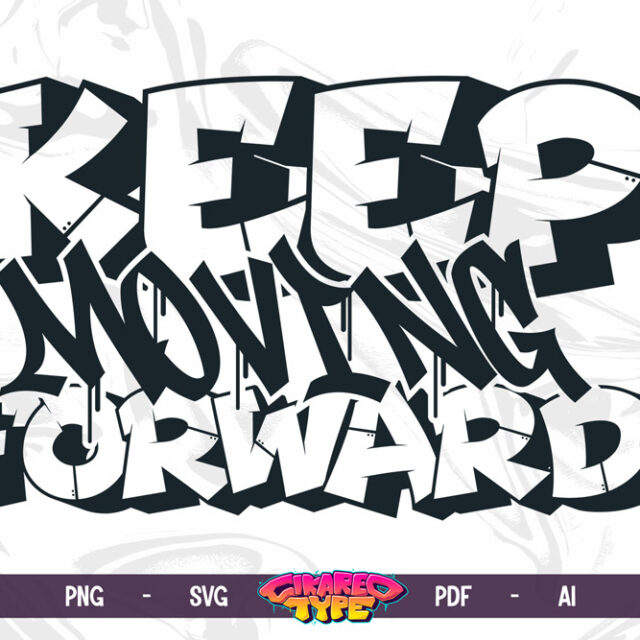
About Keep Moving Forward
Graffiti has always been more than just an art form—it’s a message, a statement, and a voice from the streets. With our Keep Moving Forward | Bold Graffiti Typography Vector & PNG, you can bring that motivational energy into your own design projects. This graffiti typography design combines bold lettering, urban style, and inspirational meaning, making it perfect for creators who want their work to not only look powerful but also deliver a strong message.
Why Choose Keep Moving Forward Graffiti Typography?
The phrase Keep Moving Forward has universal power—it represents growth, motivation, and resilience. Combined with a bold graffiti typography style, it transforms into a piece of art that inspires while staying true to urban authenticity.
The Keep Moving Forward Graffiti Text Design Vector is ideal for projects such as:
Streetwear apparel: motivational graffiti graphics for t-shirts, hoodies, and caps
Music industry: bold artwork for covers, flyers, or event branding
Social media: motivational Instagram posts, TikTok visuals, YouTube thumbnails
Print projects: wall posters, motivational stickers, lifestyle branding
✔ Bold graffiti typography design with motivational style
Why Designers Love It
Designers love the Keep Moving Forward Graffiti Vector because it merges powerful meaning with bold urban visuals. Instead of just another graffiti graphic, it delivers a motivational message that resonates with audiences. This makes it perfect for brands, artists, and content creators who want to inspire while staying stylish.
Graffiti art has always been about expression, and this vector embodies that perfectly—it allows designers to deliver a strong rebellious vibe while motivating their audience at the same time.
Who Is This For?
This graffiti typography vector is designed for creators who thrive on bold visuals and strong messages:
Streetwear designers wanting to create motivational apparel
Music industry professionals branding their events and covers
Social media creators delivering bold, urban inspiration
Lifestyle brands looking for rebellious but positive visual assets
Print shops & merchandise sellers producing motivational graffiti products
Why It’s a Must-Have in 2025
In 2025, motivational streetwear and urban branding continue to dominate design trends. Audiences resonate with positive, powerful graffiti typography that speaks directly to resilience and growth. The Keep Moving Forward Graffiti Typography Vector positions your projects at the heart of this movement, making sure your designs stay relevant and impactful.
Whether you’re launching a streetwear collection, designing a motivational campaign, or building an urban lifestyle brand, this graffiti typography vector is your key to bold, impactful visuals.